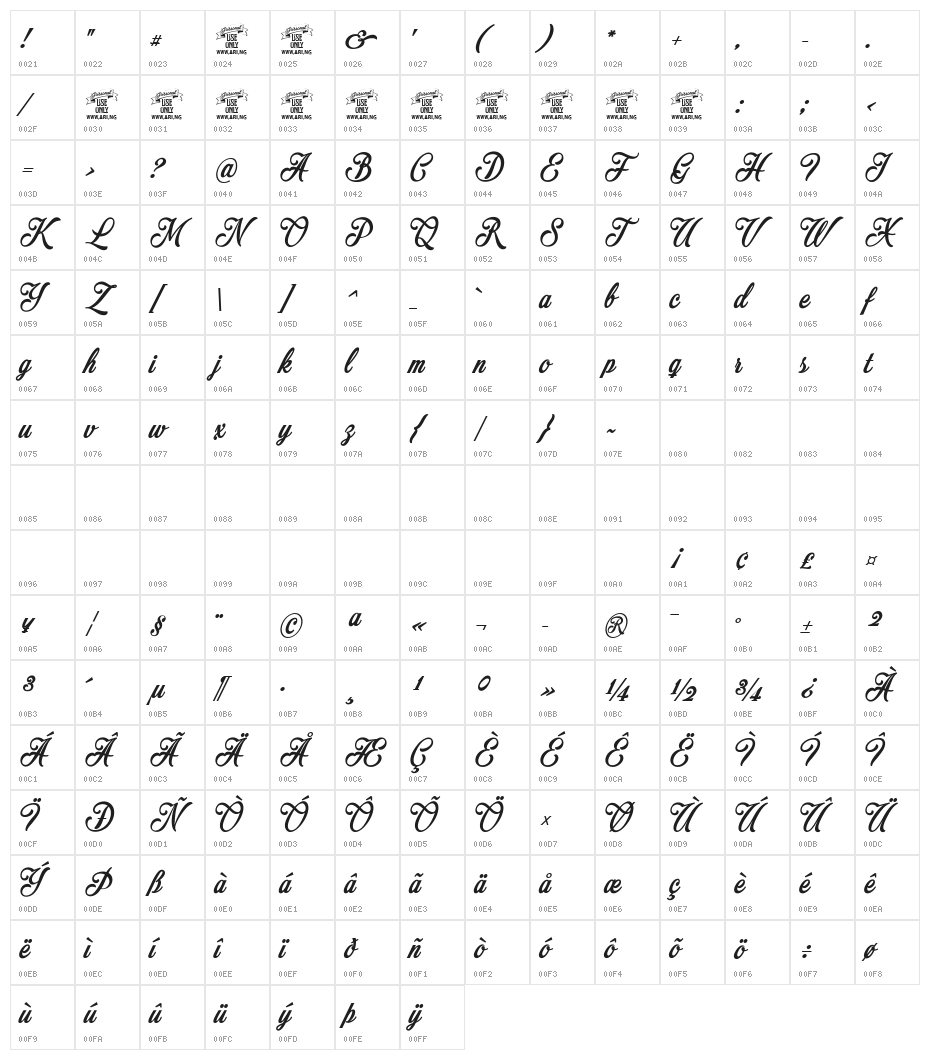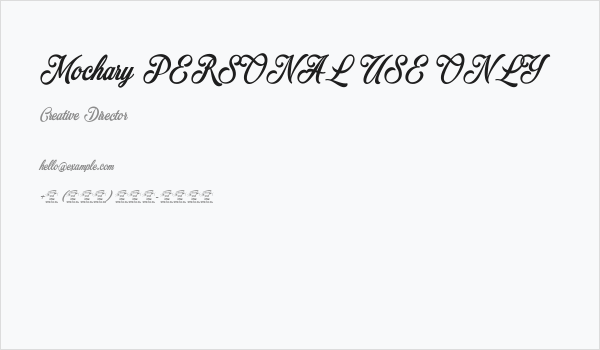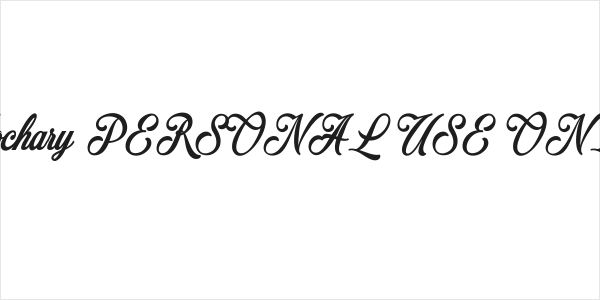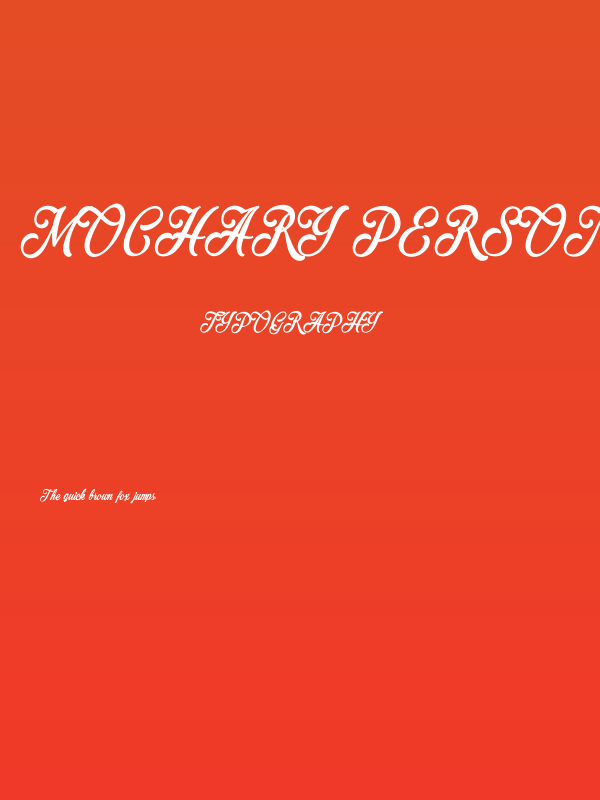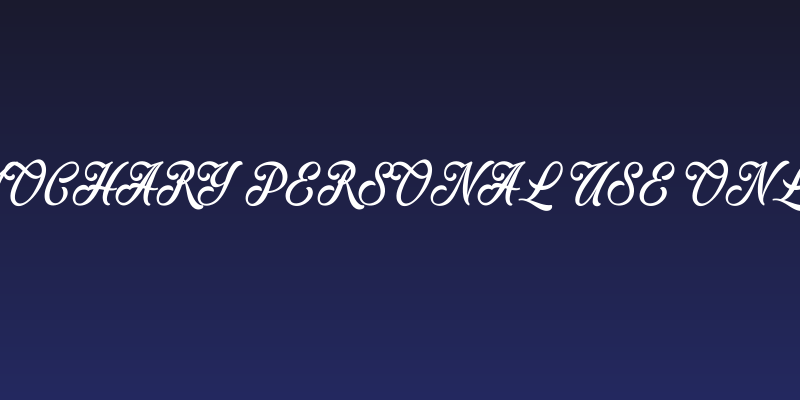
Mochary PERSONAL USE ONLY Font
Mochary PERSONAL USE ONLY Description
This font features an elegant and flowing script style with a classic touch. The uppercase letters are ornate and connected, creating a sense of sophistication and fluidity. The lowercase letters are bold and slightly slanted, maintaining a cohesive look with the uppercase set. The numerals and special characters are designed to match the overall aesthetic, with a consistent stroke width that adds to the font's readability. This font is ideal for projects that require a personal or formal touch, such as invitations, branding, or decorative signage.
| Proposed Projects | Ideal for wedding invitations, branding, decorative signage, and formal event materials. |